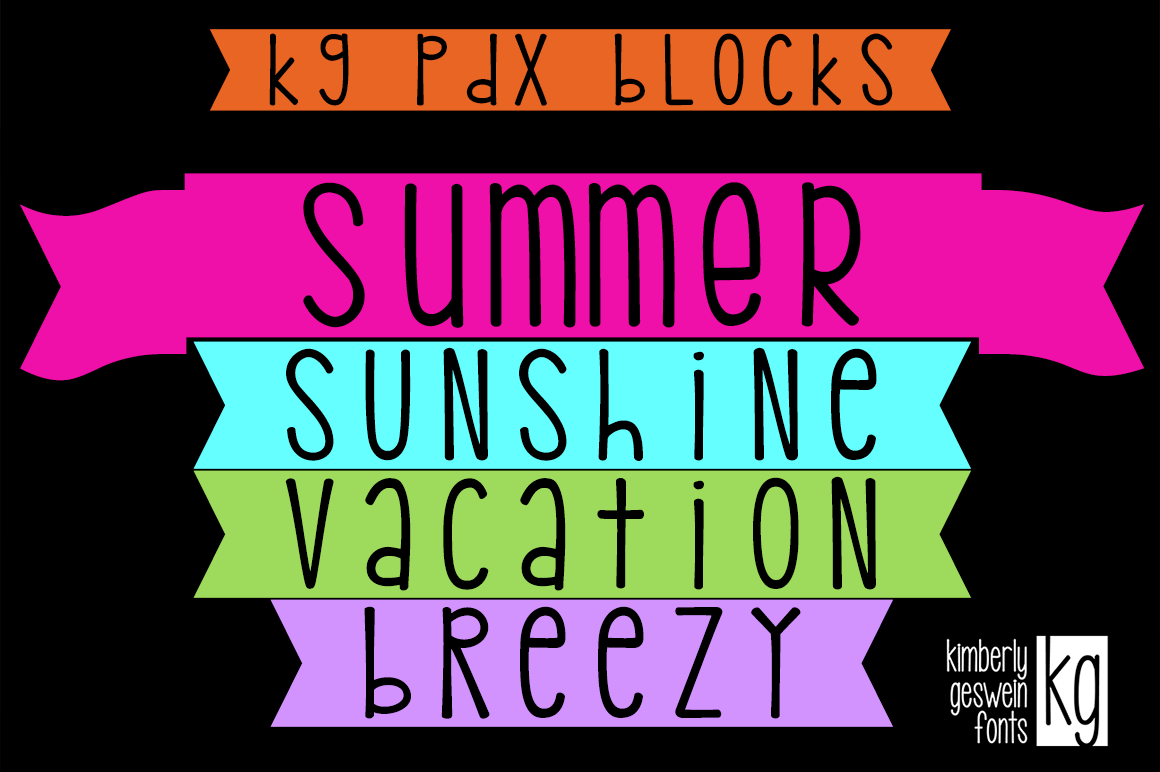
KG PDX Blocks Font
This super cute unicase, monospaced font has a few different end pieces you can swap in and out. Use the bar key ||||| to create solid spaces. An enclosed PDF will teach you how to use the font.